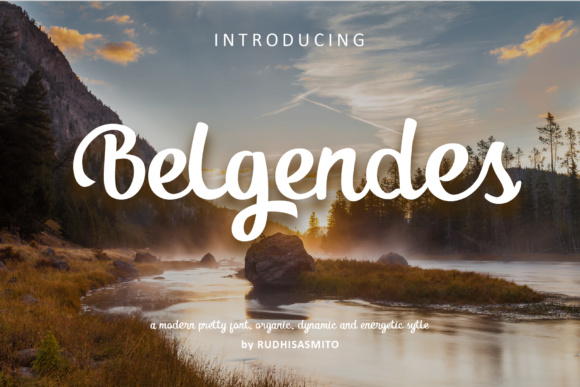
Introducing Belgendes, a modern calligraphy font that embodies elegance and uniqueness, ready to captivate your audience and leave an unforgettable impression. Crafted with precision and artistic flair, Belgendes is the epitome of beauty in typography, designed to elevate your creative projects to new heights of sophistication.
Dive into the world of Belgendes and embark on a journey of artistic expression. Let your imagination soar as Belgendes' graceful curves and captivating details add a touch of enchantment to your designs. Whether you're a seasoned designer or just starting your creative journey, Belgendes is your trusted companion, guiding you towards remarkable outcomes.
With Belgendes, you hold the key to unlocking endless possibilities. Its versatility knows no bounds, spanning across a wide range of applications, from captivating headlines and eye-catching logos to enchanting invitations and heartfelt greeting cards. Transform your digital presence with Belgendes' charm, or let it adorn the pages of your printed materials, leaving a lasting impression on all who encounter it.
Experience the magic of Belgendes in its meticulously crafted details. Every stroke, every curve, every nuance has been carefully designed to create a font that is both aesthetically pleasing and functional. Belgendes' organic and energetic style exudes a sense of vitality, making it the perfect choice for designs that demand attention and evoke emotion.
Belgendes excels in large format applications, where its bold and expressive characters take center stage. Let Belgendes shine in your headlines, captivating the eyes of your readers and drawing them into the depths of your content. Its organic flow and dynamic rhythm create a visual symphony that dances across the page, leaving a lasting impact on the beholder.
Belgendes is not just a font; it's an experience. It's an invitation to explore the realm of creativity and let your imagination run wild. Unleash the power of Belgendes and witness the transformation of your designs into masterpieces that resonate with your audience and leave an enduring legacy of artistic brilliance.